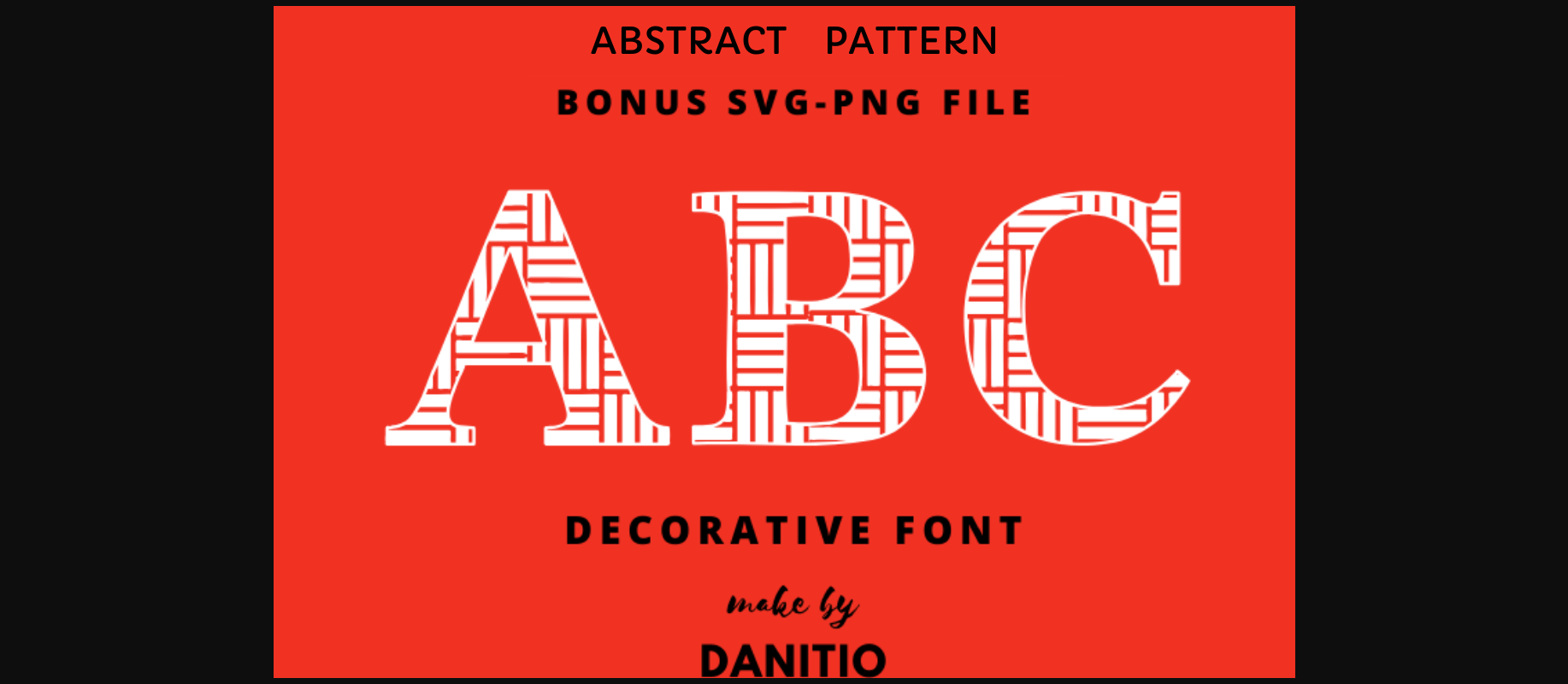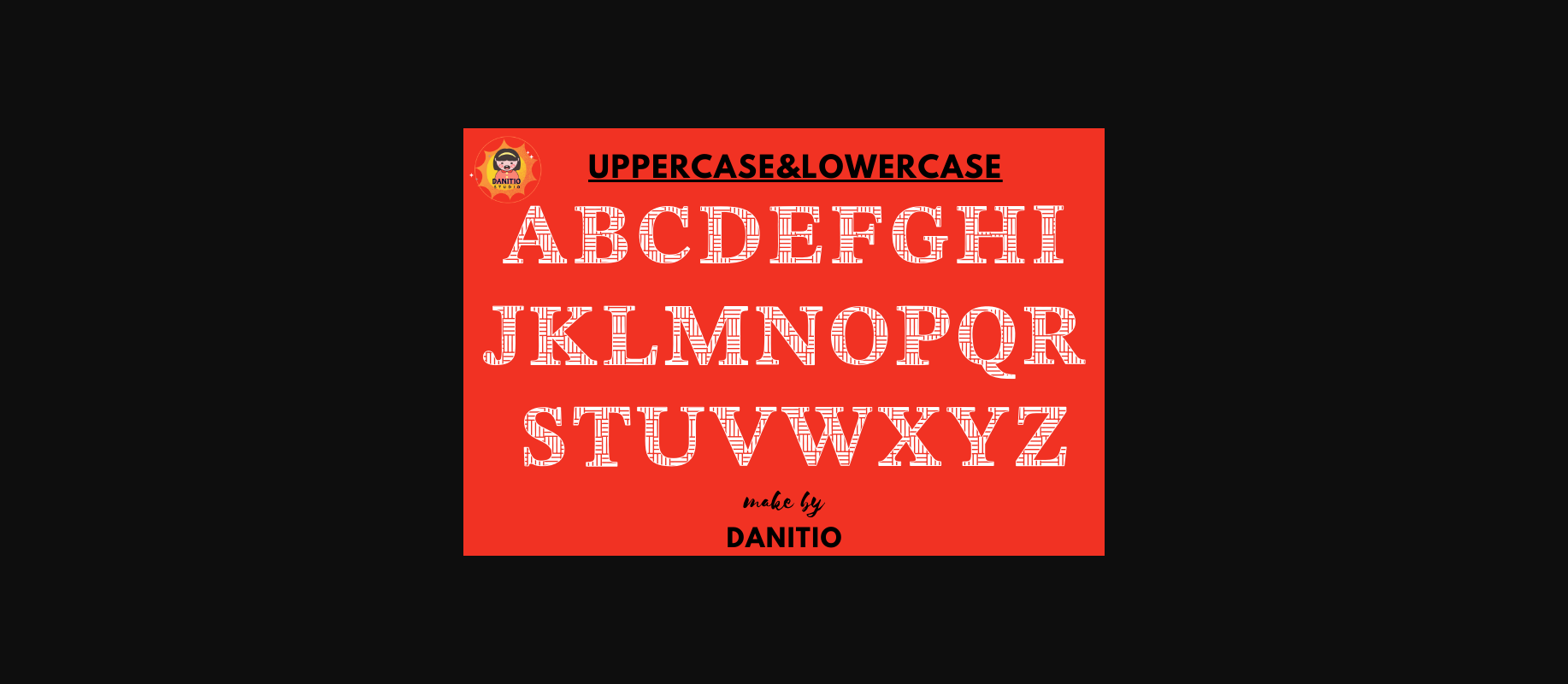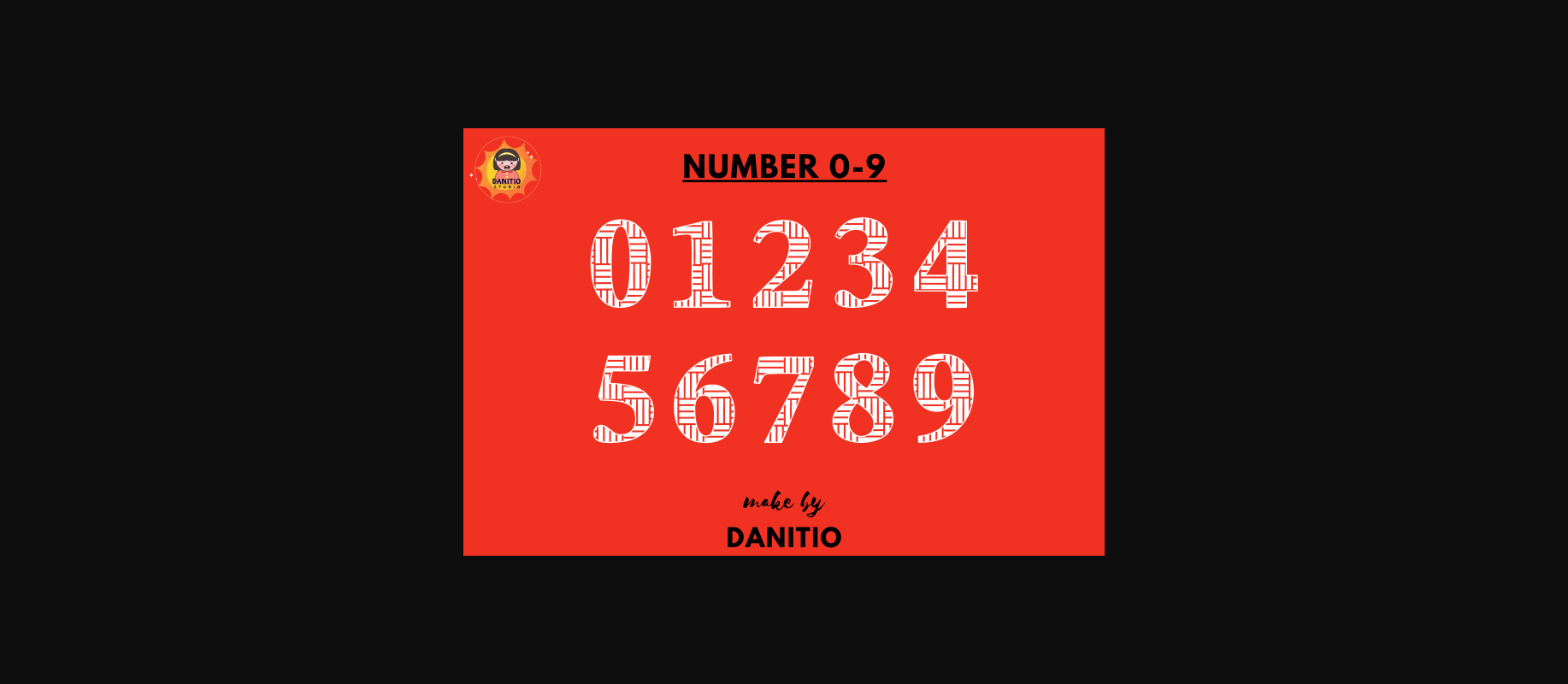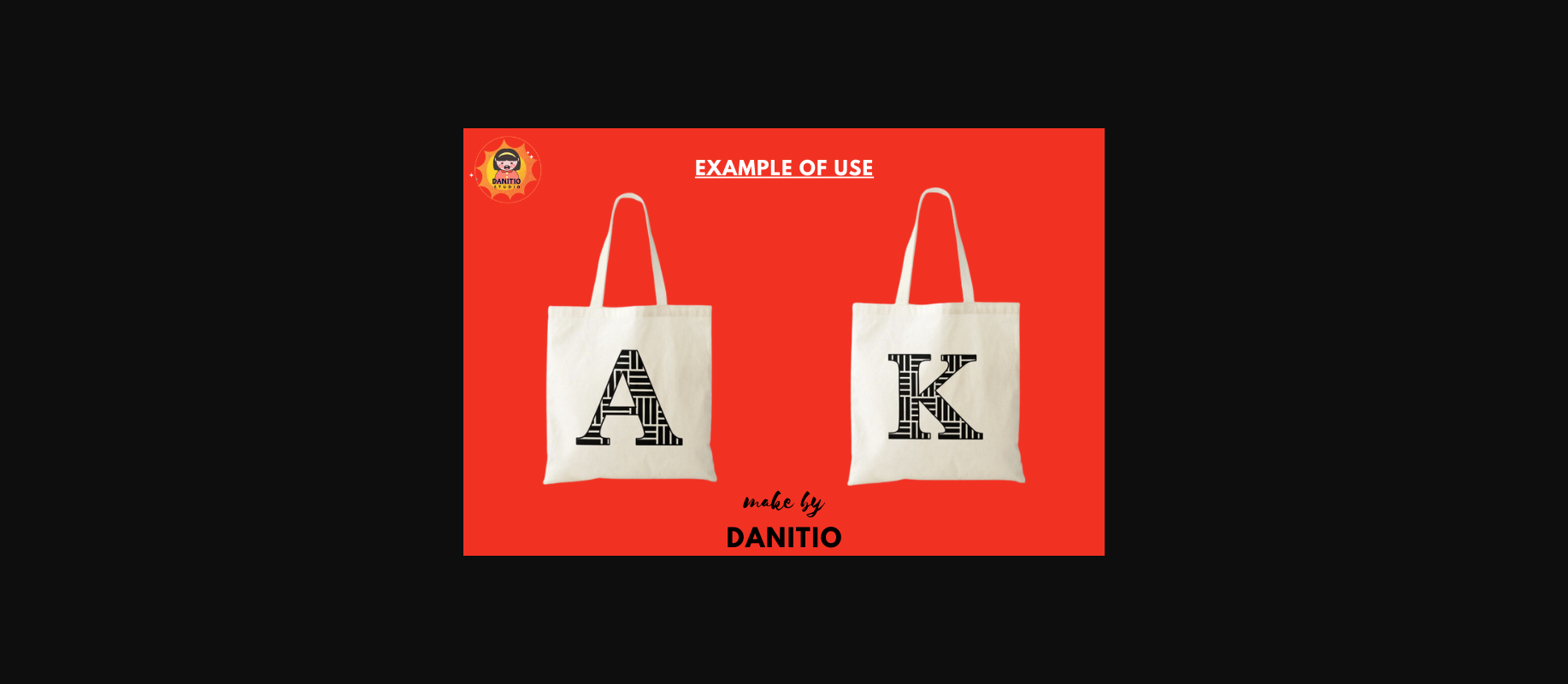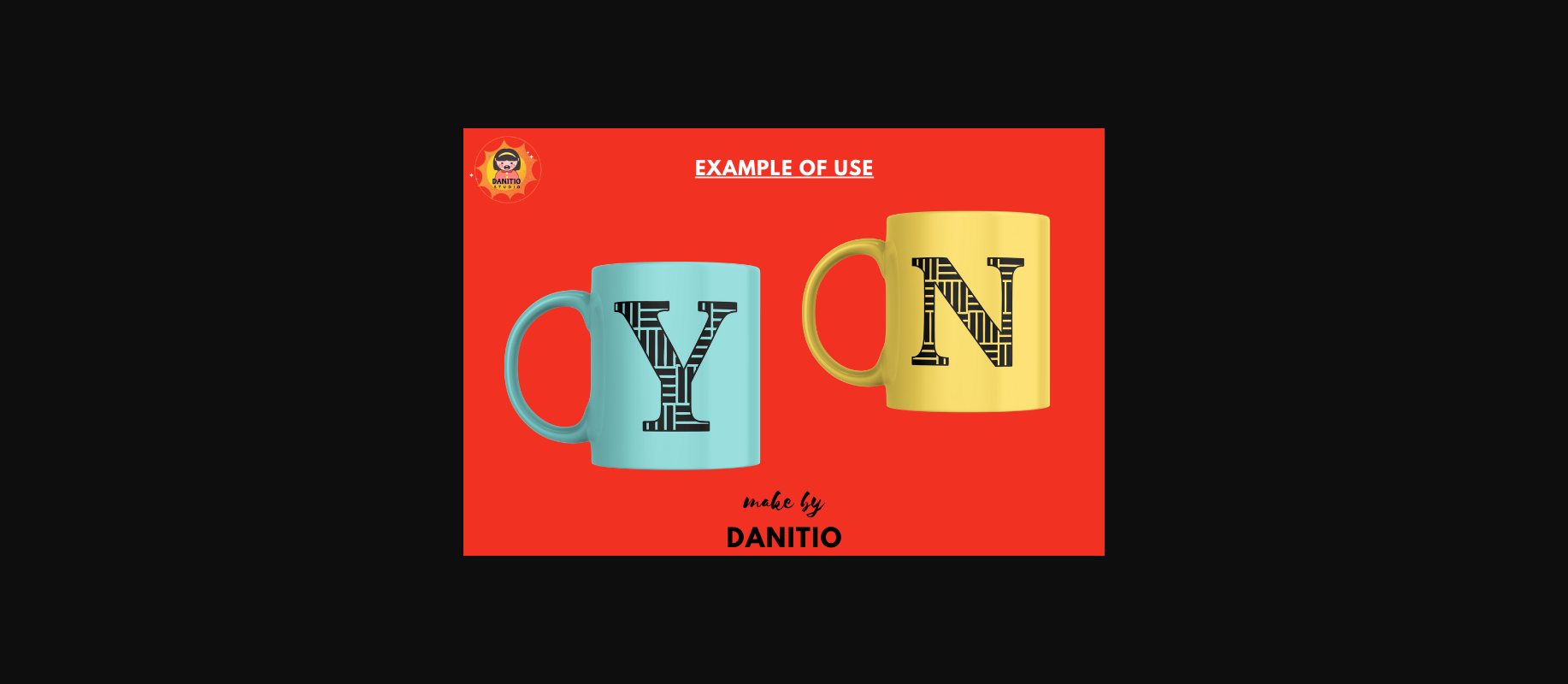
Abstract Pattern Font
About Abstract Pattern Font
Abstract Pattern is a decorative font, that is the perfect combination of charm and eccentricity. Intricate abstract patterns combine to make any design look cool and modern, perfect for event invitations, stationery, or party decorations. It combines products with elegance and elegance that blooms.